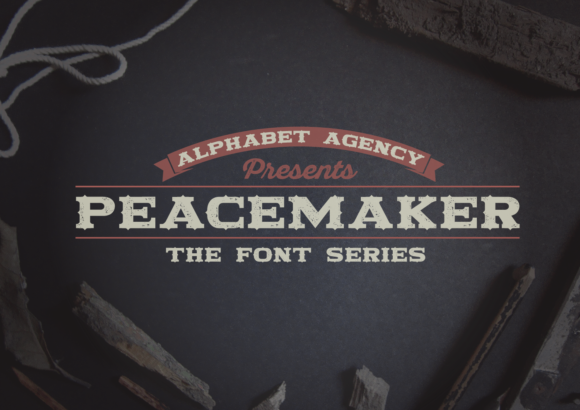
Adorn your designs with the Peacemaker Font, a striking display font that exudes vintage charm and bold personality. Crafted by the skilled hands at Alphabet Agency, Peacemaker is not just a font; it's a captivating storyteller that brings your words to life.
With its distinctive retro style, Peacemaker commands attention and adds a touch of timeless elegance to any project. Whether you're creating eye-catching posters, captivating logos, or stunning social media graphics, Peacemaker is your trusted companion, ready to elevate your designs to new heights.
Unleash your creativity and let Peacemaker weave its magic across your projects. Its strong and assertive characters demand attention, while its vintage undertones evoke a sense of nostalgia and authenticity. From bold headlines that command attention to playful invitations that exude charm, Peacemaker is the versatile font that adapts seamlessly to your every need.
Dive into the world of Peacemaker and discover a font that's more than just a collection of letters. It's an artistic expression that captures the essence of your message and leaves a lasting impression. Join the ranks of creative visionaries who have harnessed the power of Peacemaker to create designs that resonate with audiences and leave an indelible mark.
Embark on a creative journey with Peacemaker as your guide. Let its vintage charm and bold personality infuse your designs with a touch of sophistication and originality. Discover the endless possibilities that await you when you choose Peacemaker, the font that transforms ordinary words into captivating stories.